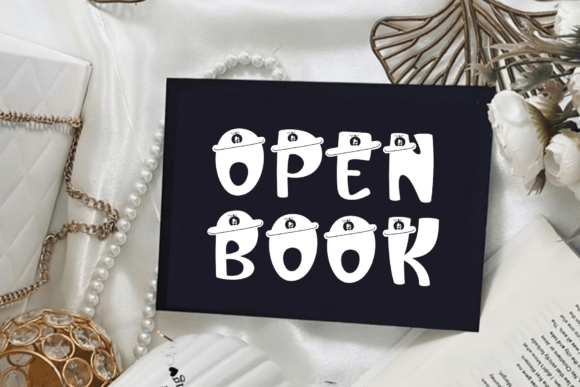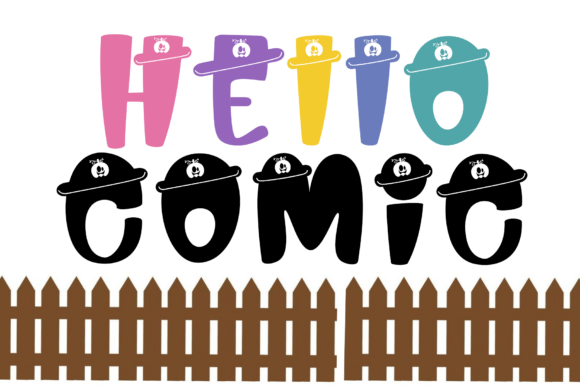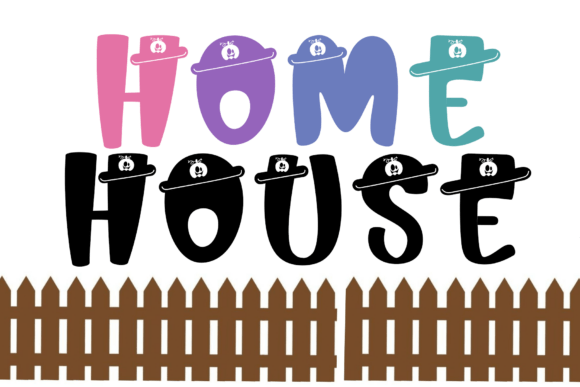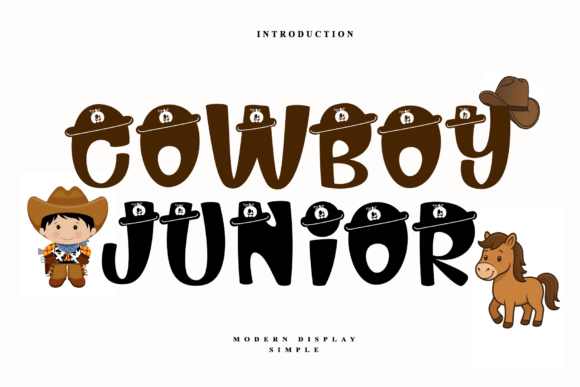
Introduction to Cowboy Junior Font
Cowboy Junior is a lovely and timeless decorative font.
Add it to your creative ideas and enjoy the results .
Key Features of Cowboy Junior Font
Why Choose Cowboy Junior Font?
Cowboy Junior Font offers exceptional quality and versatility, making it a valuable addition to your design toolkit. Whether you’re creating for personal projects or commercial use, Cowboy Junior Font delivers professional results.